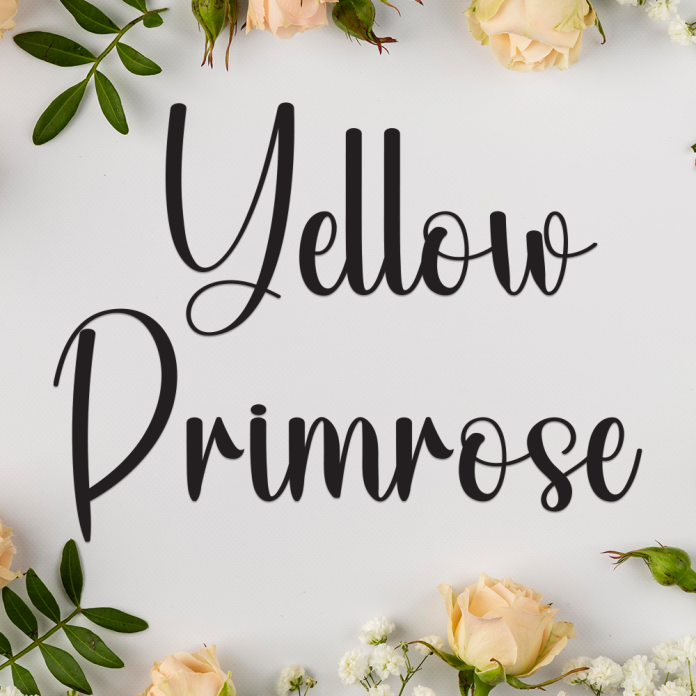
Yellow Primrose is a gentle and elegant handwriting font that captures the beauty of handwritten notes. With its soft strokes and natural flow, this font brings a touch of warmth and sincerity to any design.
Perfect for wedding invitations, greeting cards, personal branding, logos, and feminine-themed projects, Yellow Primrose offers a delicate charm that's both timeless and graceful.
Elegant and smooth handwritten style
Authentic pen-like strokes
Ideal for romantic and personal designs
Let your words bloom beautifully with Yellow Primrose!